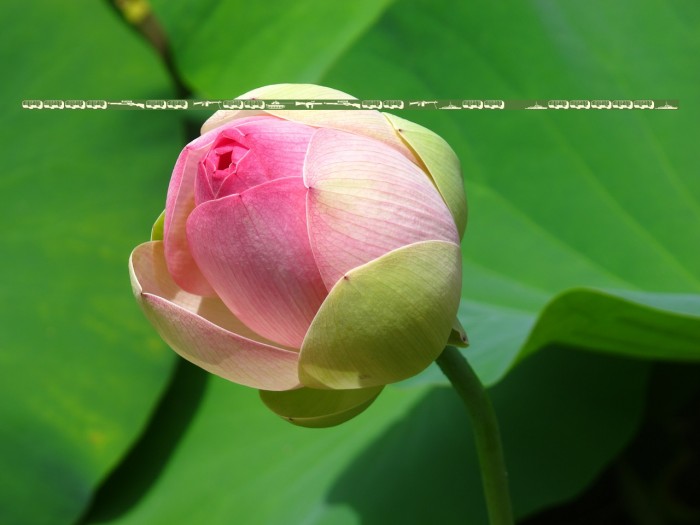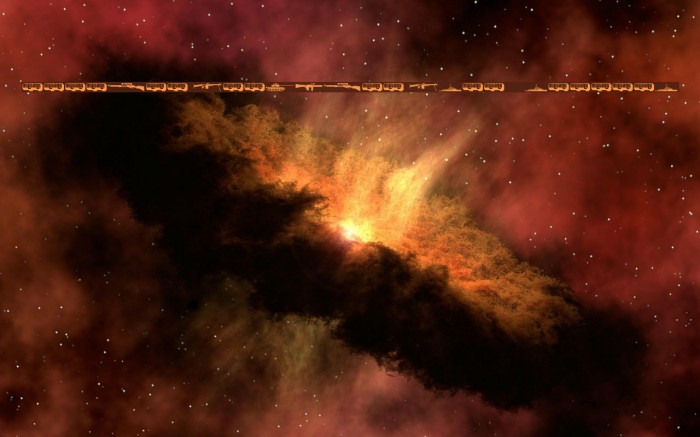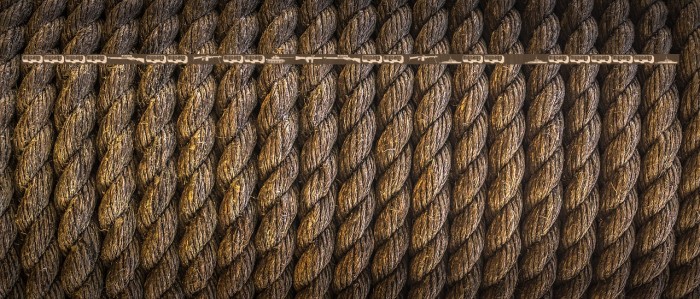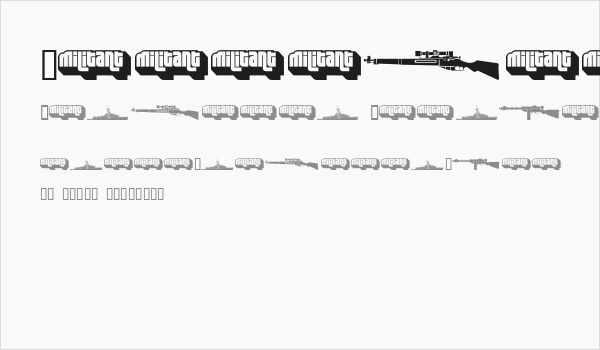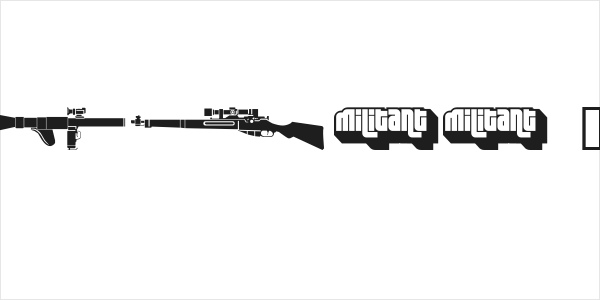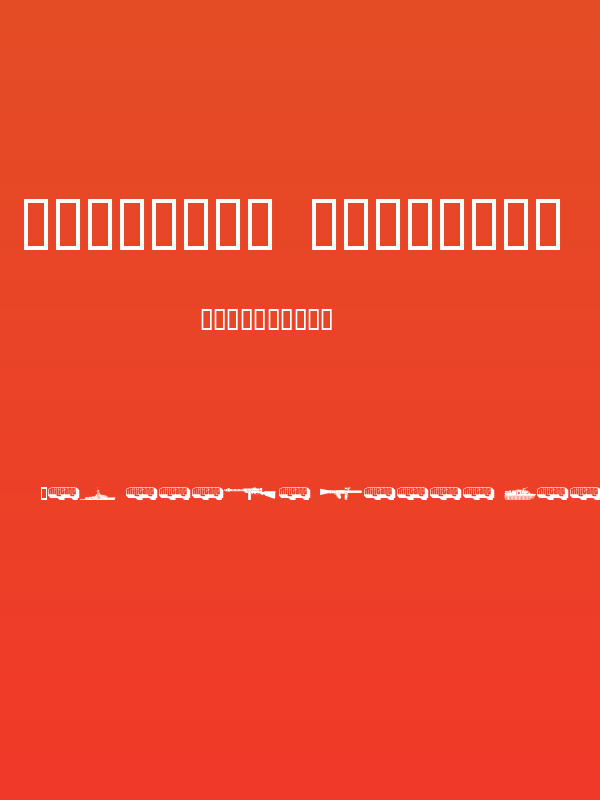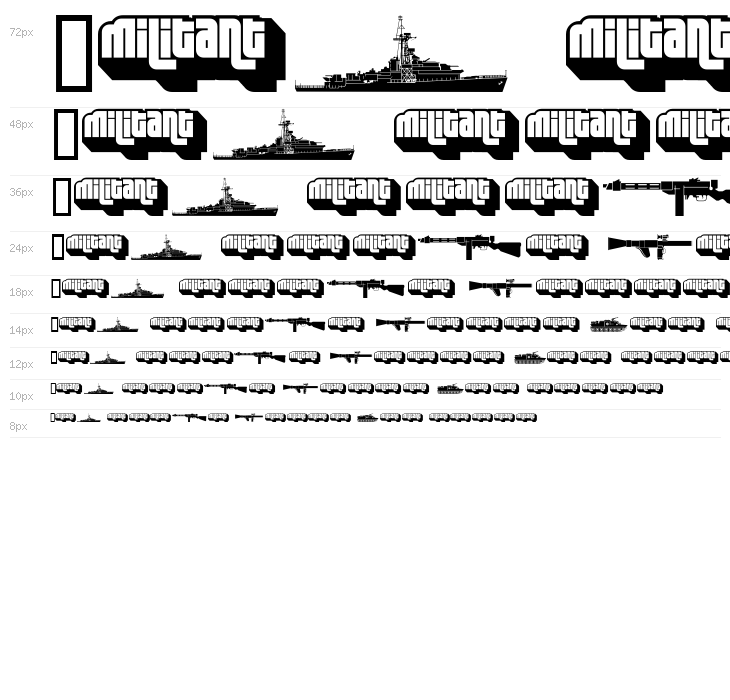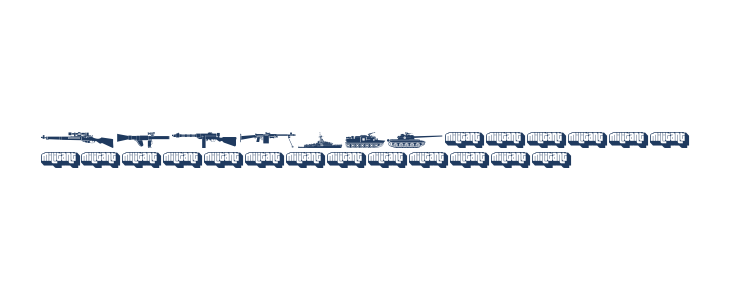
Military dingbats (demo) Fenotype Font
Military dingbats (demo) Fenotype Description
This is a dingbat font featuring military-themed symbols and icons. The characters are represented by various military equipment such as rifles, tanks, and other vehicles. The style is bold and impactful, with a clear emphasis on military motifs. Each symbol is detailed, providing a realistic depiction of the equipment. This font is designed to convey strength and authority, making it suitable for projects that require a military or tactical theme.
| Use Case | Logos, Posters, Themed Graphics |
| Proposed Projects | Ideal for military-themed posters, video game graphics, educational materials on military history, or any project requiring a strong, authoritative visual impact. |